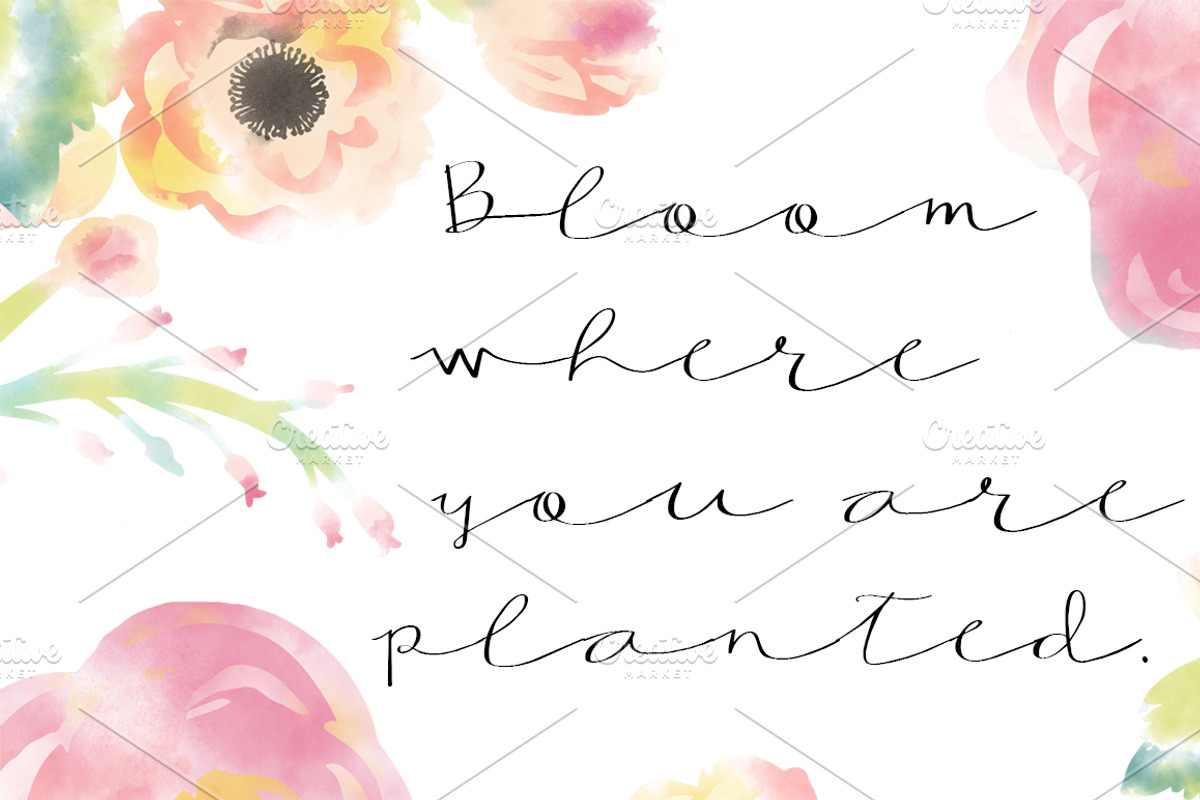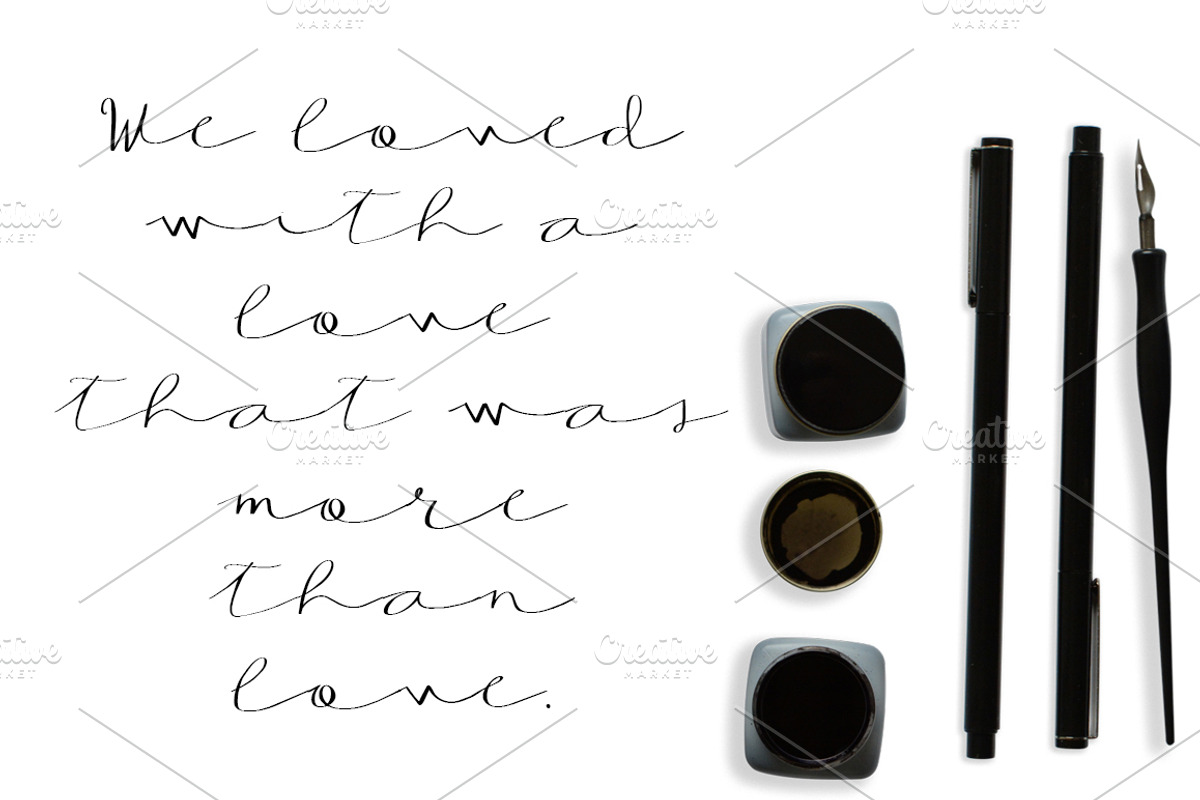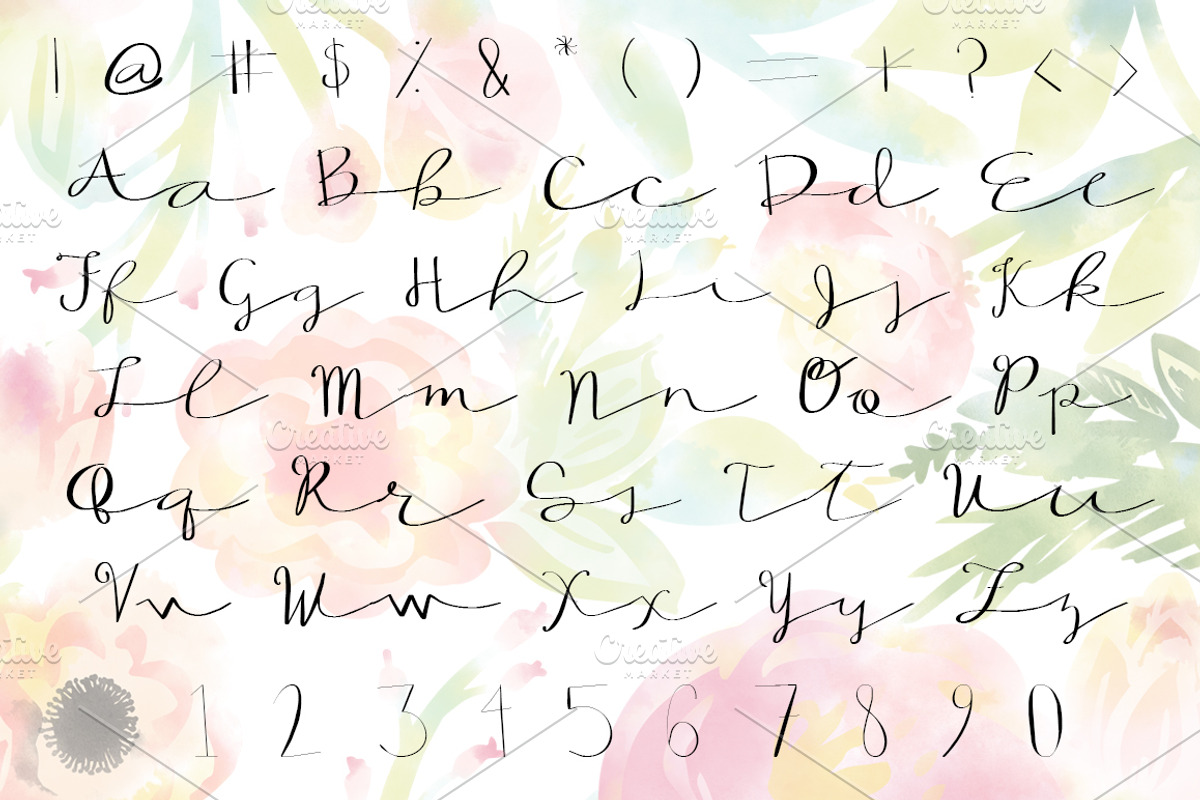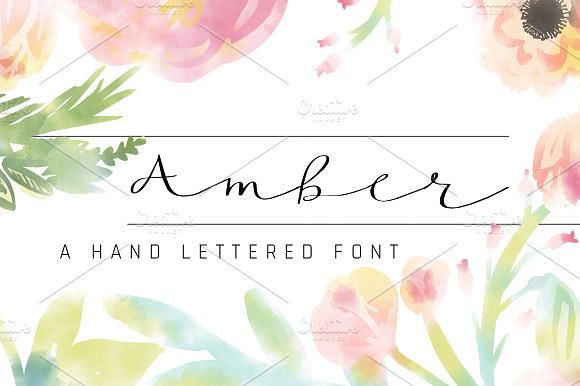
AMBER Hand Lettered Font
Amber is a beautiful hand scripted font. Long and skinny, this font has come kinks and curves that will make any project look specially unique! Amber includes full alphabet, numbers, and symbols.
- Amber includes full alphabet, numbers, and symbols.